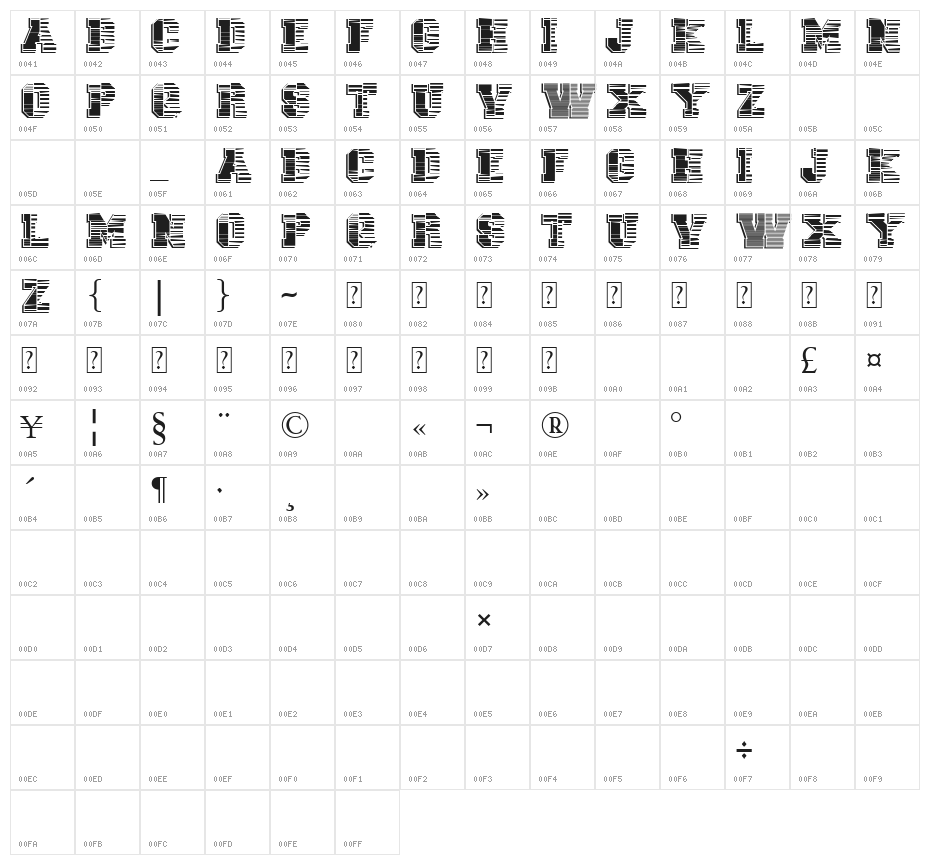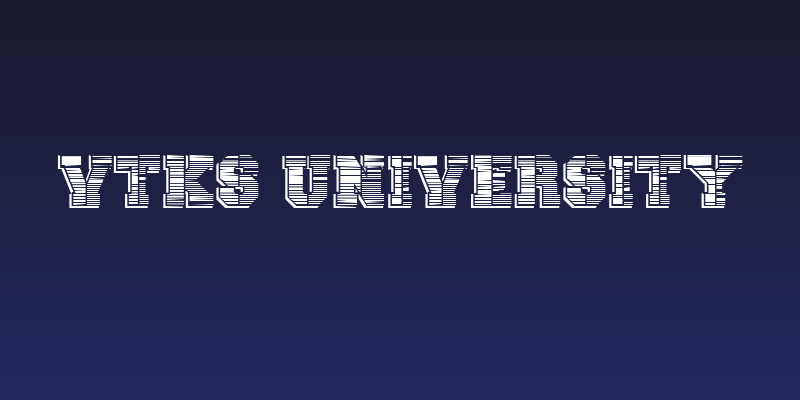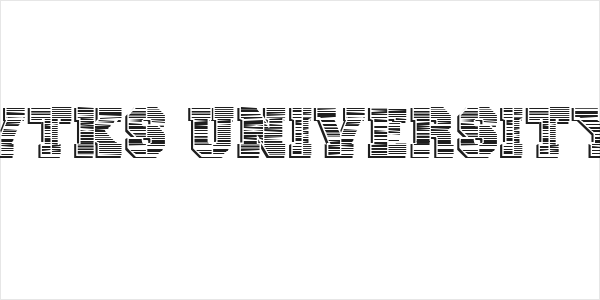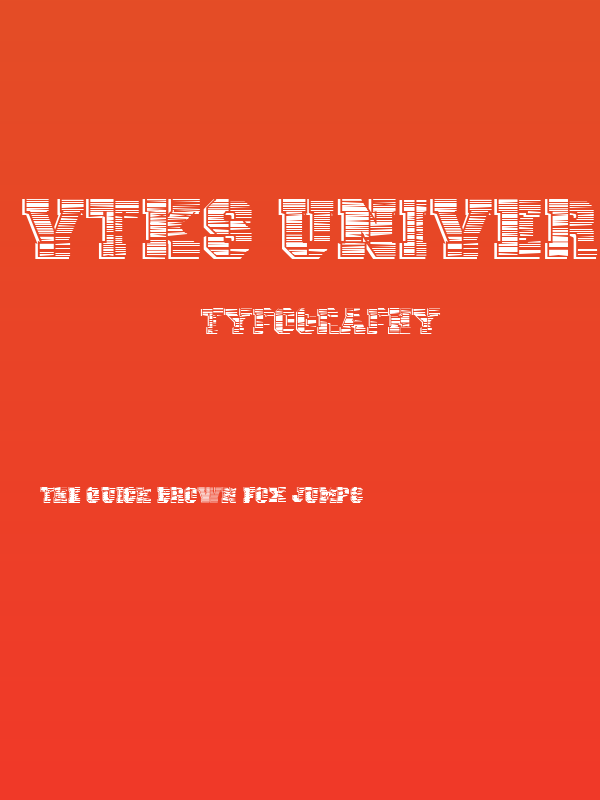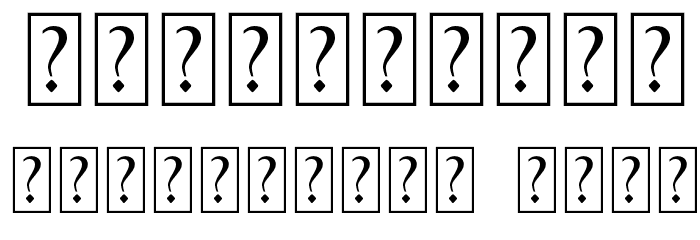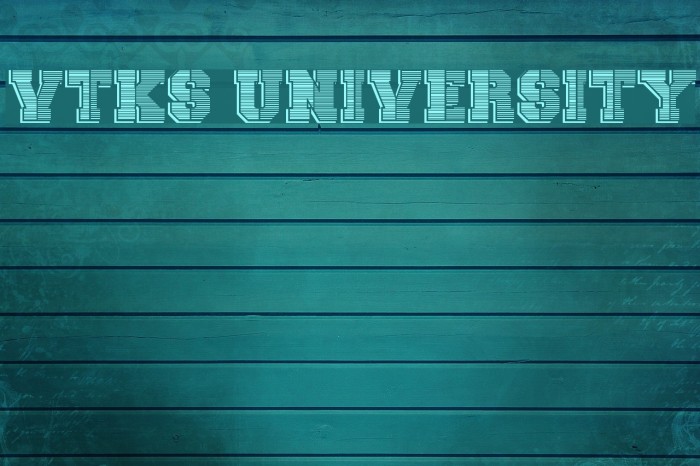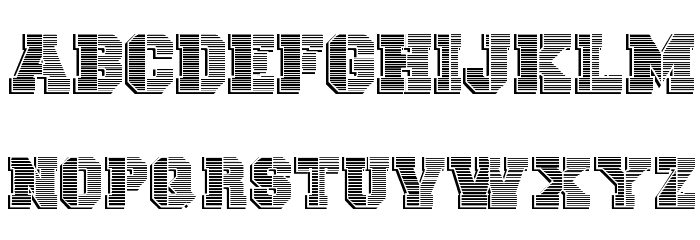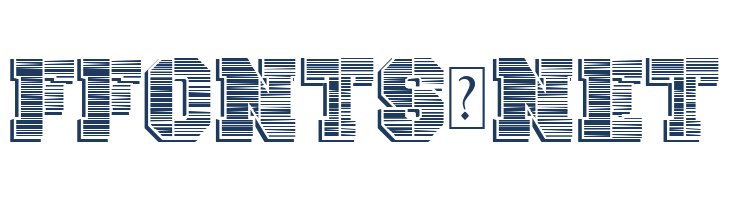
vtks university Font
vtks university Description
This font features a bold, decorative style with a unique striped pattern running horizontally across each character. The uppercase letters are robust and eye-catching, making them ideal for attention-grabbing designs. The font's geometric structure is consistent, with each letter maintaining a uniform width and height. The absence of lowercase letters and numbers suggests a focus on impactful headlines or titles. The special characters are framed within boxes, adding an extra layer of emphasis and style. Overall, this font exudes a modern and dynamic aesthetic, suitable for projects that require a strong visual presence.
| Proposed Projects | Ideal for posters, logos, and headlines where a strong, decorative impact is desired. |